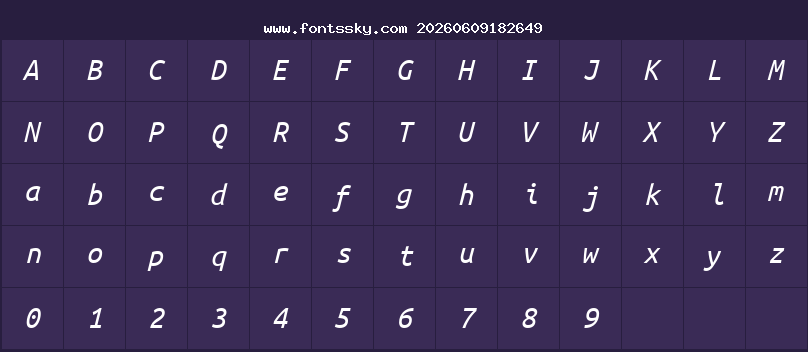
• Font Name: Ubuntu Mono
• Designer: Dalton Maag Ltd
• Manufacturer: Dalton Maag Ltd
Ubuntu Mono.ttf is a modern, elegant sans-serif font designed for ultimate readability and visual harmony. Perfect for branding, headlines, web design, and print materials.